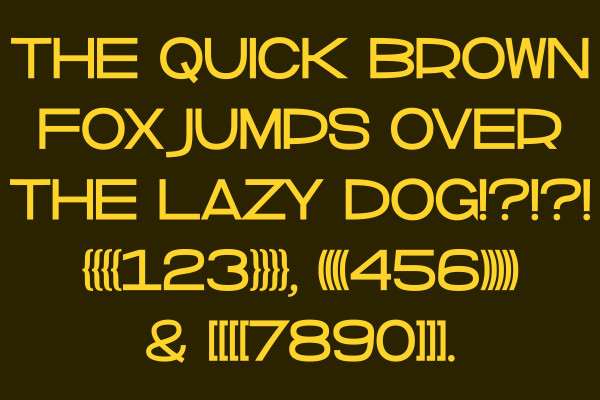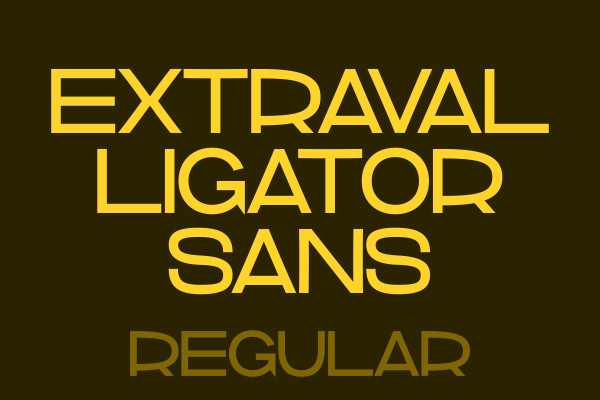
Extravalligator Sans Regular Font
Extravalligator Sans Regular Font, This is a sample of my upcoming variable width typeface. This sample font is free for personal, non-commercial use.
Extravalligator Sans is perfect for logos, branding, magazine headlines and posters.